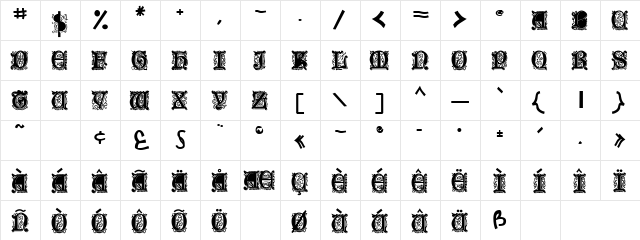
OlderEnglishCaps118 Bold
Design Context for OlderEnglishCaps118 Typeface
OlderEnglishCaps118 is a composed and adaptable typeface that performs quietly and consistently across a wide range of design contexts. The heavy weight commands attention and anchors typographic hierarchies.